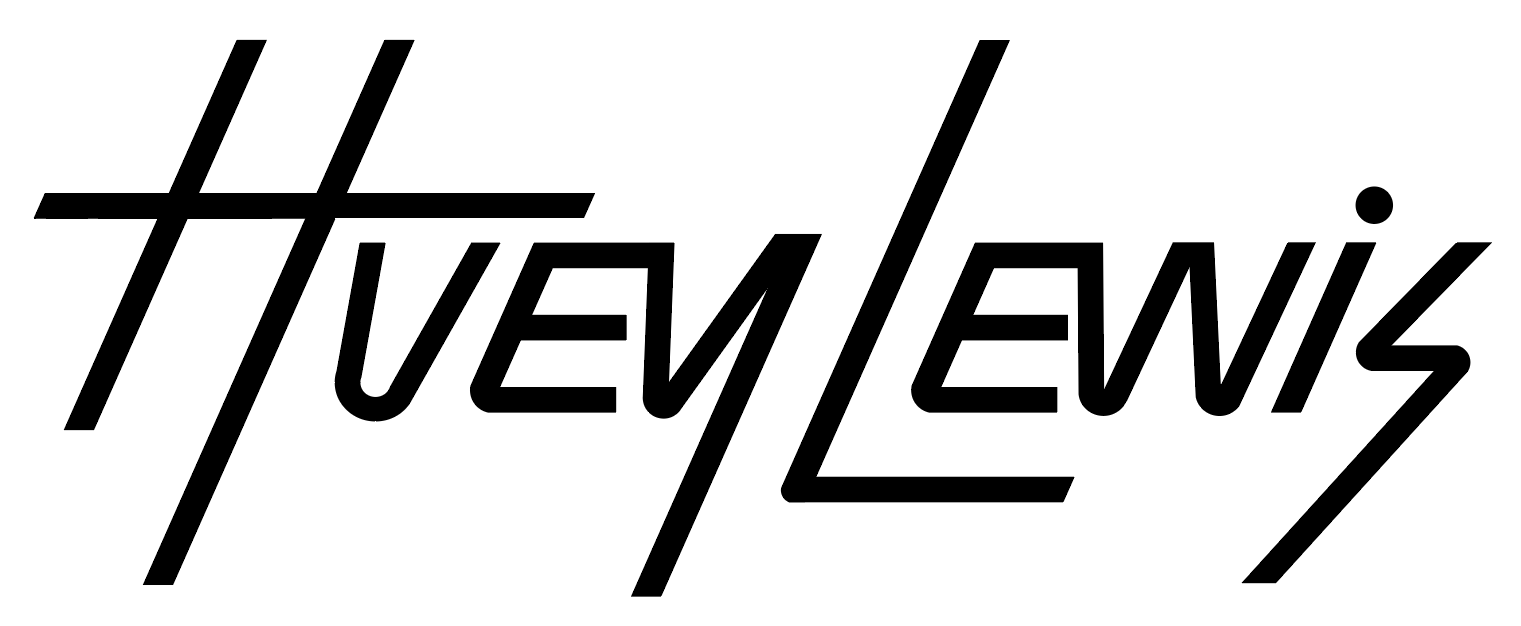
Please help me with the font name
I can't find something similar. The shape of letters indicates this is probably a custom hand drawn logo (lettering) not a font.